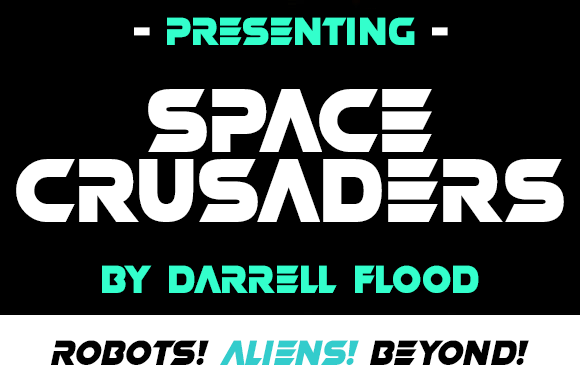
Journey into the cosmos with Space Crusaders Font, a display font that boldly declares its presence in any design. Its captivating diagonal slices and graceful curves intertwine effortlessly, creating a style that is both modern and timeless, perfect for conveying the vastness of space and the allure of the unknown.
Unleash your creativity and let Space Crusaders Font transport you to a universe of possibilities. Whether crafting captivating science posters, designing sleek logos, or creating immersive gaming experiences, this font is your interstellar companion, guiding you through the galaxies of imagination. Embrace the allure of futuristic designs and let your creations take flight.
With Space Crusaders Font, the cosmos is your canvas, and your words are the celestial brushstrokes. Paint vivid narratives, explore uncharted territories, and craft designs that resonate with the depths of the universe. As you delve into the realm of science fiction, Space Crusaders Font will be your trusty guide, propelling your designs to stellar heights.
Immerse yourself in the world of Space Crusaders Font, where imagination knows no bounds. Dive into the depths of space, unravel intergalactic mysteries, and let your designs soar among the stars. With its striking appearance and versatility, Space Crusaders Font is the ultimate tool for interstellar storytelling, ready to ignite your creativity and take your designs to infinity and beyond.